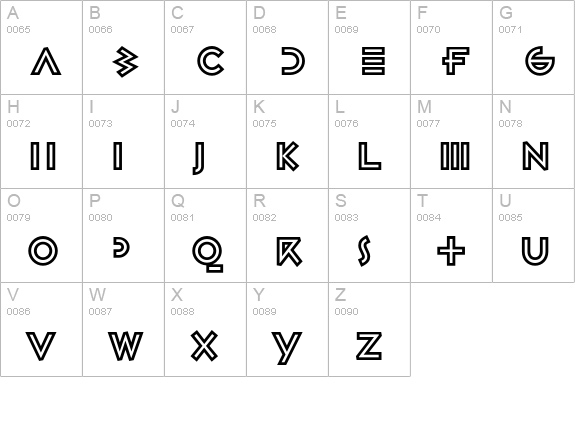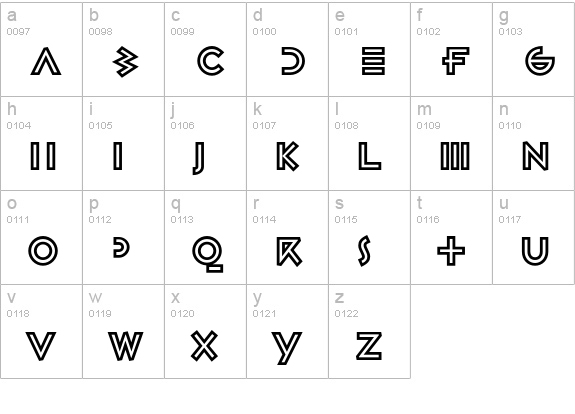
Gestalt-HTF-Linear-Outline Font Details
Gestalt-HTF-Linear-Outline font is a modern and sleek typeface designed with a sophisticated touch. Its clean lines and sharp edges give it a contemporary and stylish look, making it perfect for a wide range of design projects. The outline style of this font adds a unique visual element, making it stand out while maintaining readability. This font is not only visually appealing but also highly versatile, suitable for various design applications such as headlines, logos, posters, and more. Its bold presence and elegant design make it a great choice for creating eye-catching and impactful designs. What's even better is that Gestalt-HTF-Linear-Outline font is available for free download at FontsMarket.com. This means you can easily access and use this impressive font in your projects without any cost. Don't miss out on this opportunity to enhance your design work with the sleek and modern aesthetics of Gestalt-HTF-Linear-Outline font.